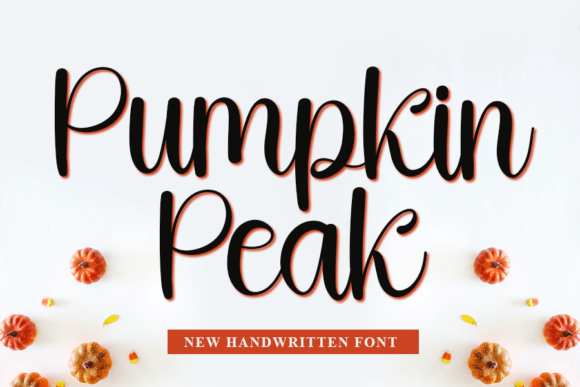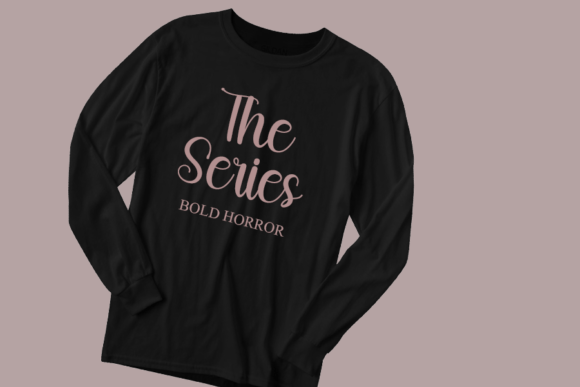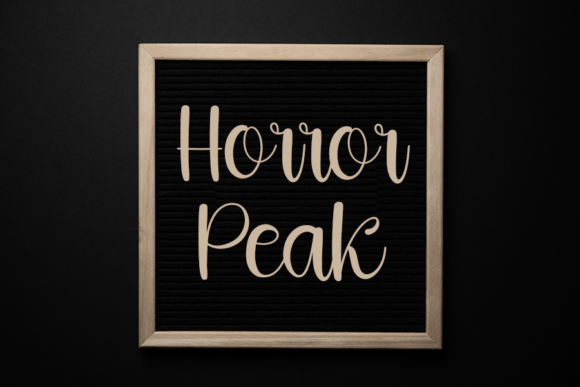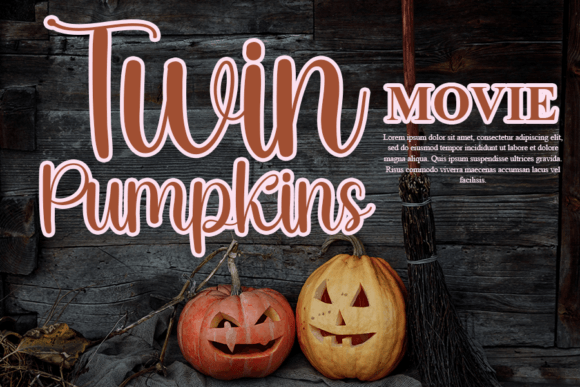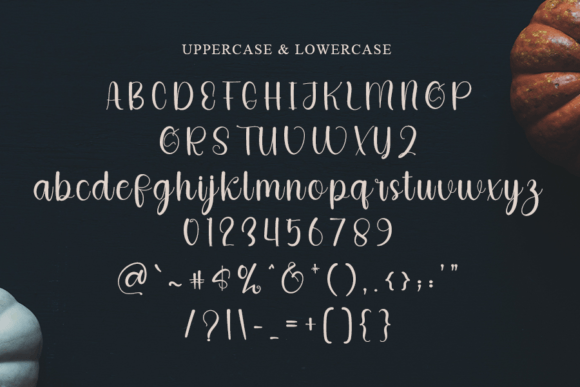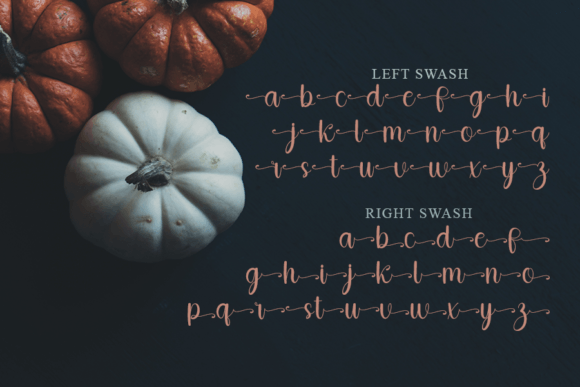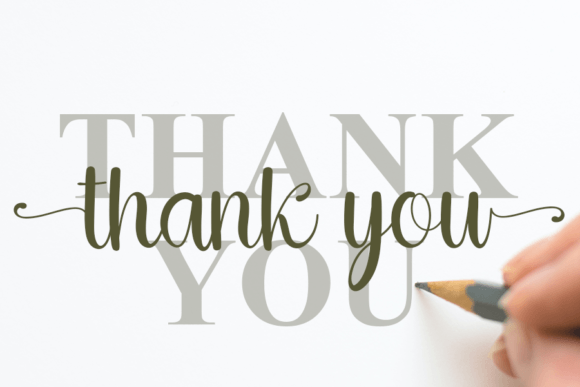
Pumpkin Peak Font
Introducing Pumpkin Peak Font
The Pumpkin Peak Font is a beautiful and refined handwritten typeface celebrated for its versatility and elegance. This font offers a visually captivating and modern option suitable for a wide array of design projects. Its allure lies in its ability to convey a sense of class and modernity with its handwritten script style.
Why Choose This Typeface?
• Classy and Modern: Pumpkin Peak elevates the aesthetics of your designs, making it ideal for logos, branding materials, invitations, stationery, wedding designs, social media posts, and more.
• Versatile Usage: This font provides a visually appealing choice for various creative endeavors, allowing you to infuse your designs with class and style.
Applications of Pumpkin Peak
• Logos: Use this font to create elegant logos that capture attention.
• Branding: Enhance your brand identity with a script style that conveys modern elegance.
• Invitations: Perfect for adding a stylish script aesthetic to invitations and other creative projects.
The Impact of Using Pumpkin Peak
This font elevates your designs by making them visually captivating and memorable. It becomes a reliable tool for designers seeking to create projects that stand out with elegance. Its balanced form ensures your designs are both refined and captivating.
The Value It Brings
This typeface excels in combining contemporary design aesthetics with classic elegance. By choosing Pumpkin Peak, you ensure your designs are not only visually appealing but also sophisticated and unique. Additionally, its PUA encoding allows easy access to all glyphs and swashes for added customization.
This font is also ideal for various creative projects beyond traditional uses. It can enhance digital designs with its elegant flair, making it suitable for websites, brochures, or mobile interfaces. The Pumpkin Peak Font adapts well to different screen sizes while maintaining its charm. As design trends evolve, this font remains relevant due to its timeless appeal, balancing style with functionality effectively.